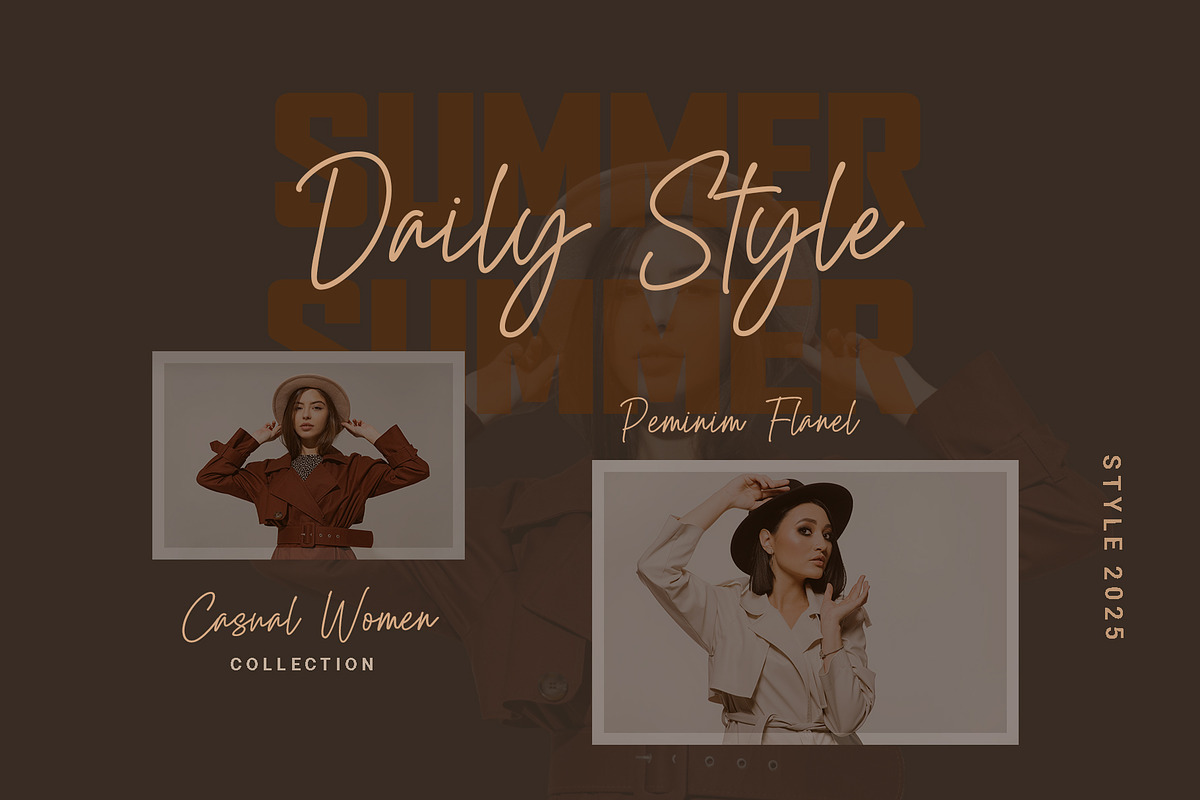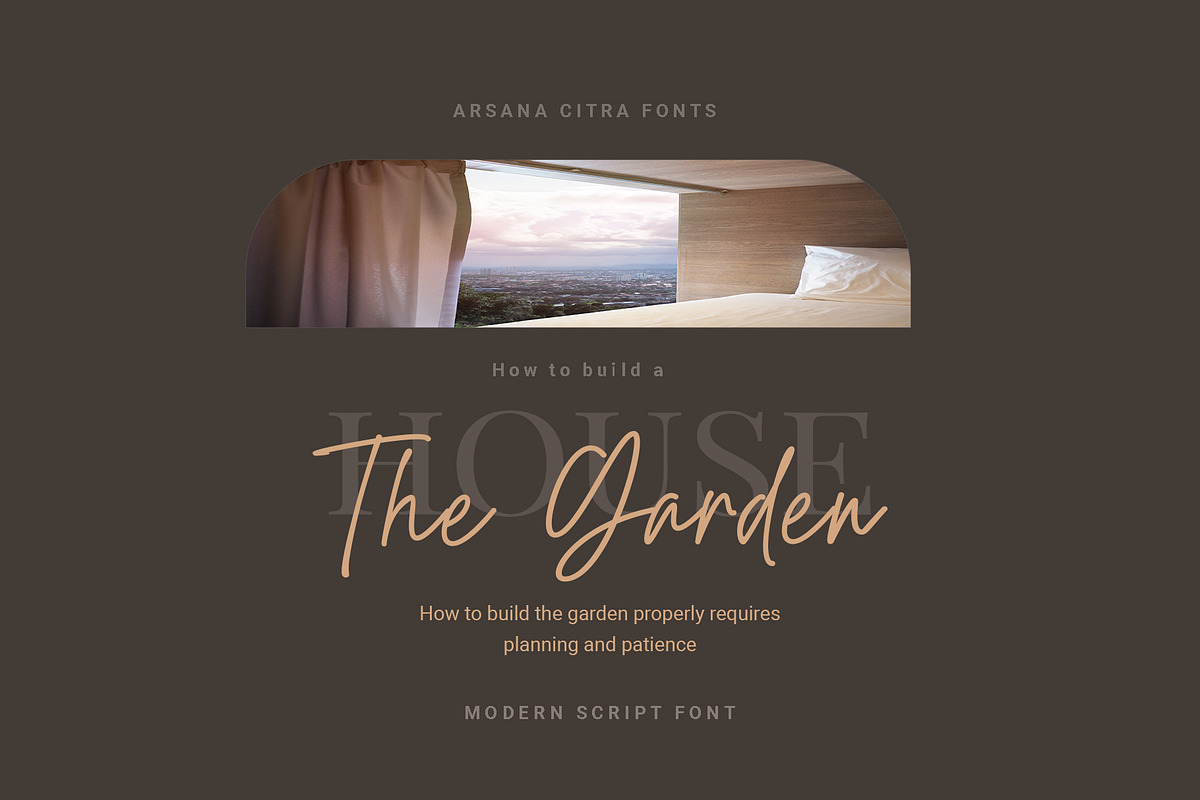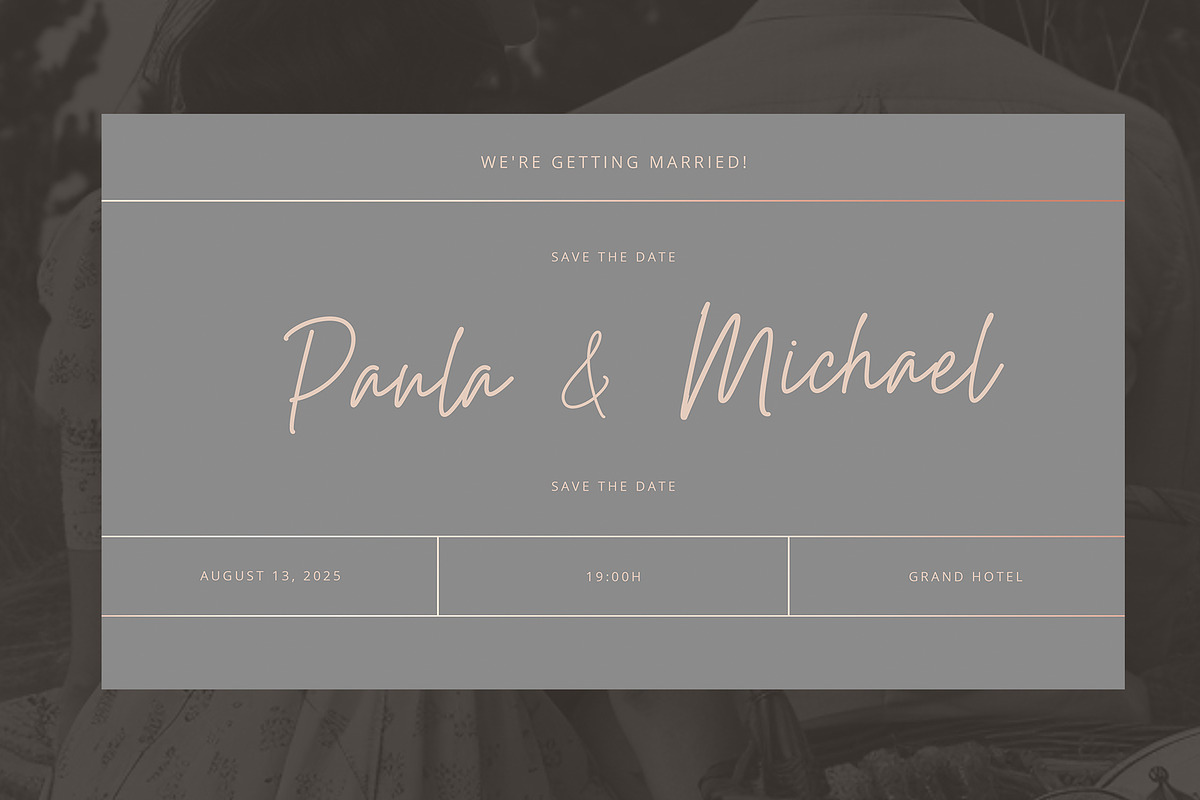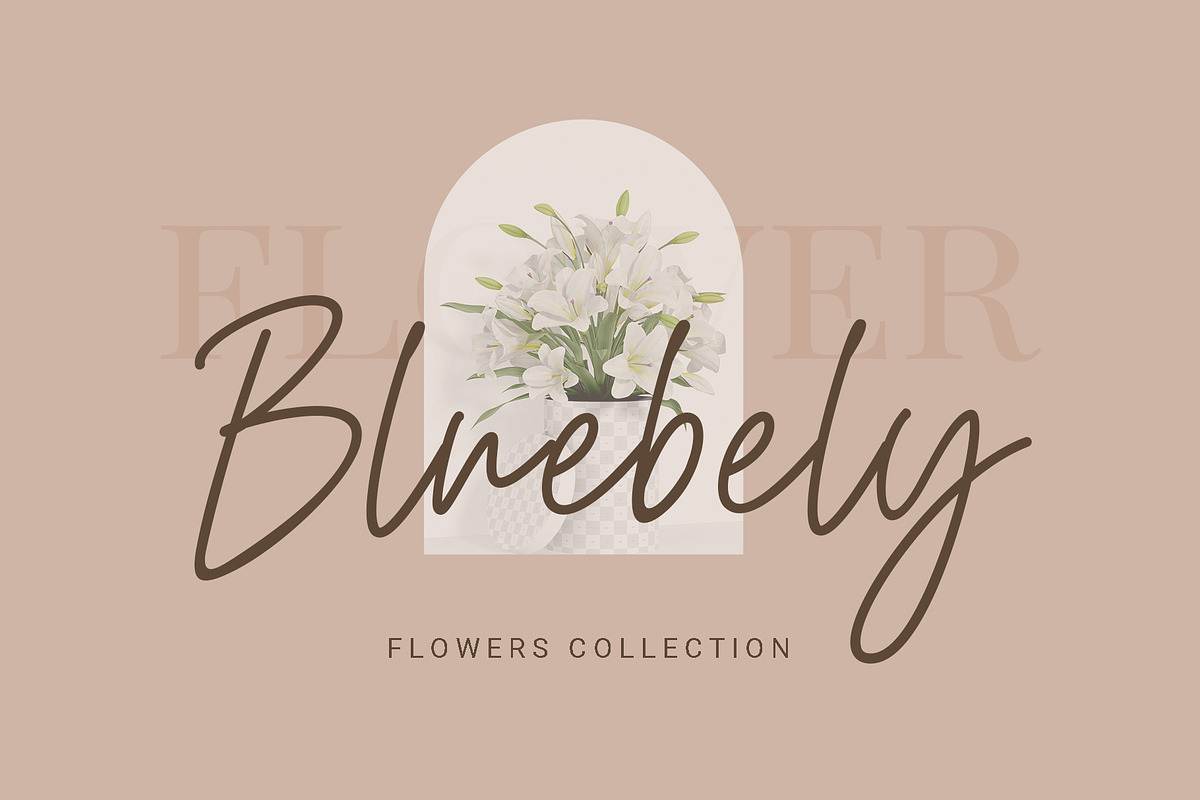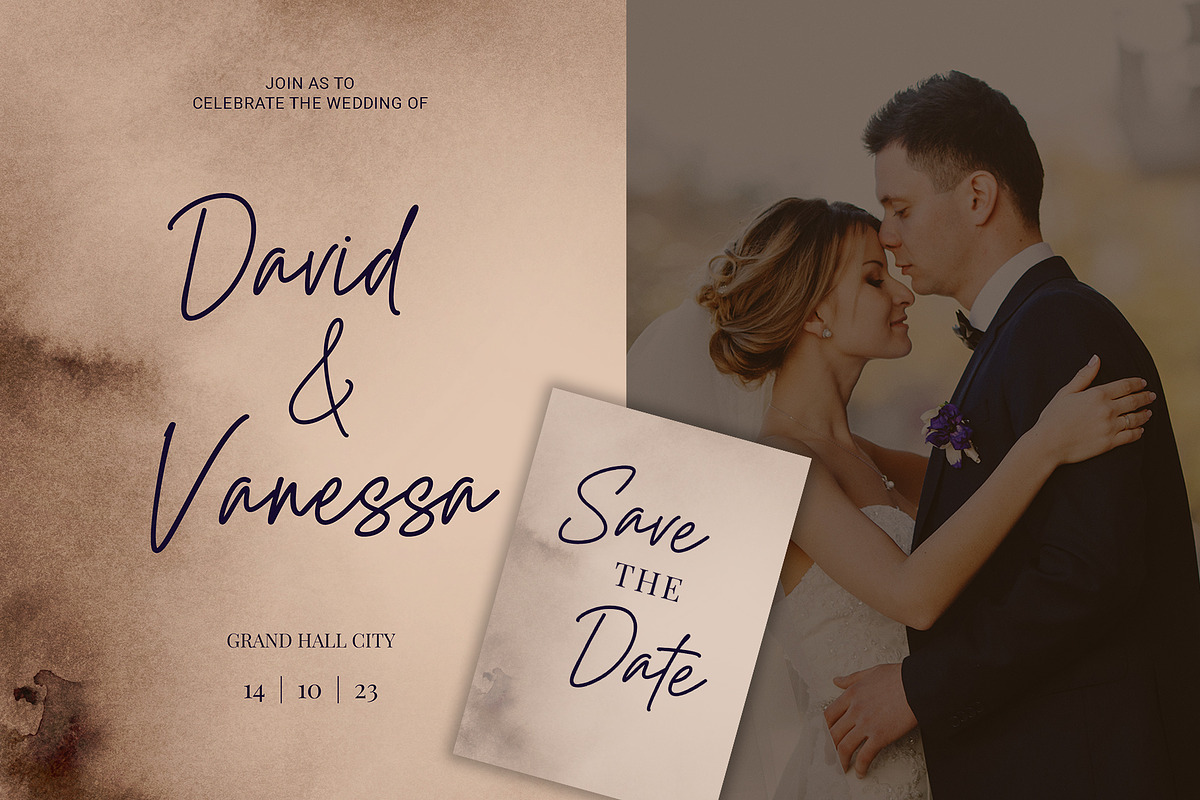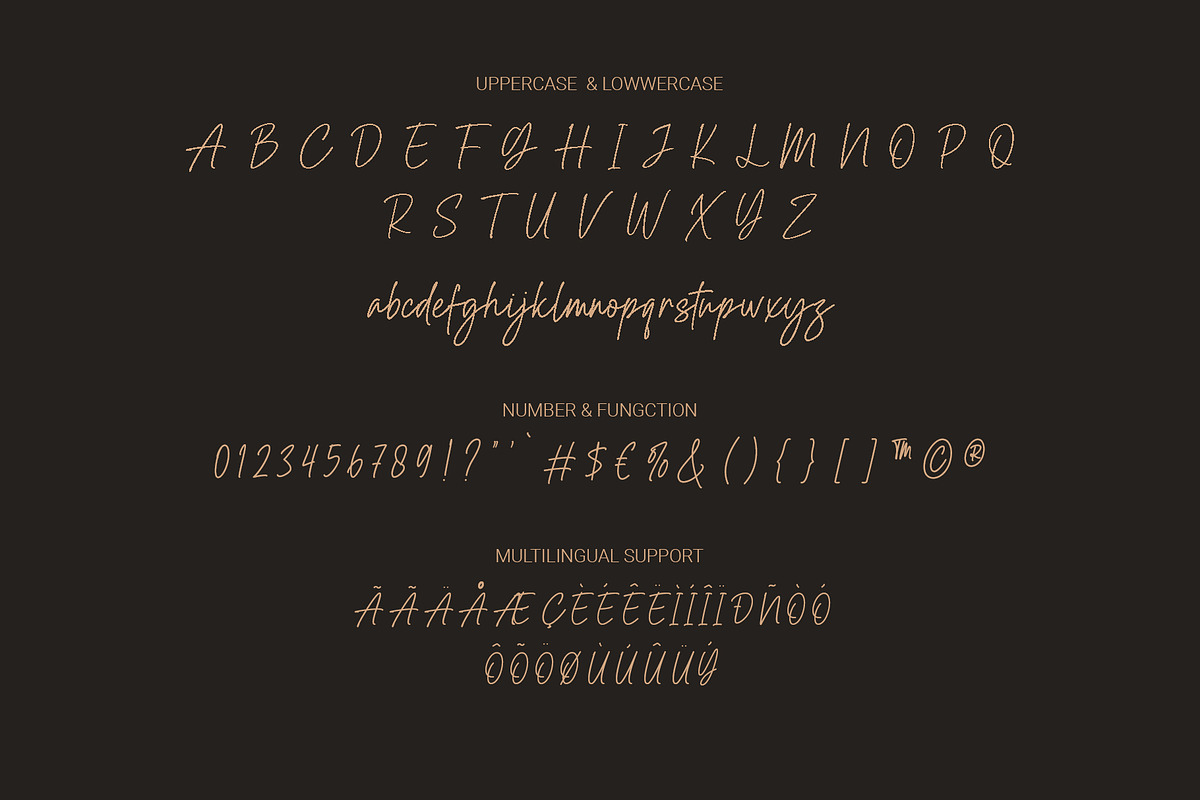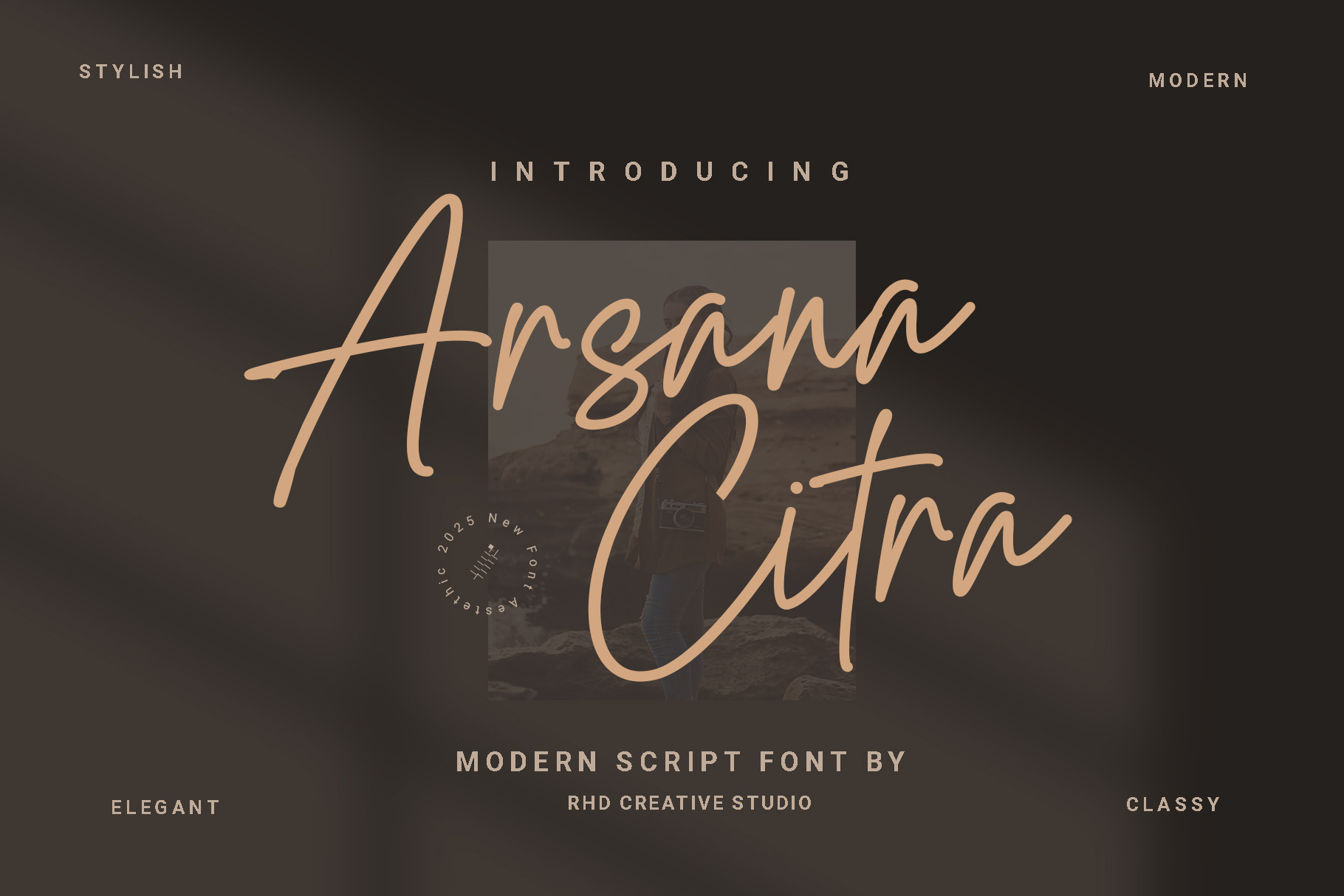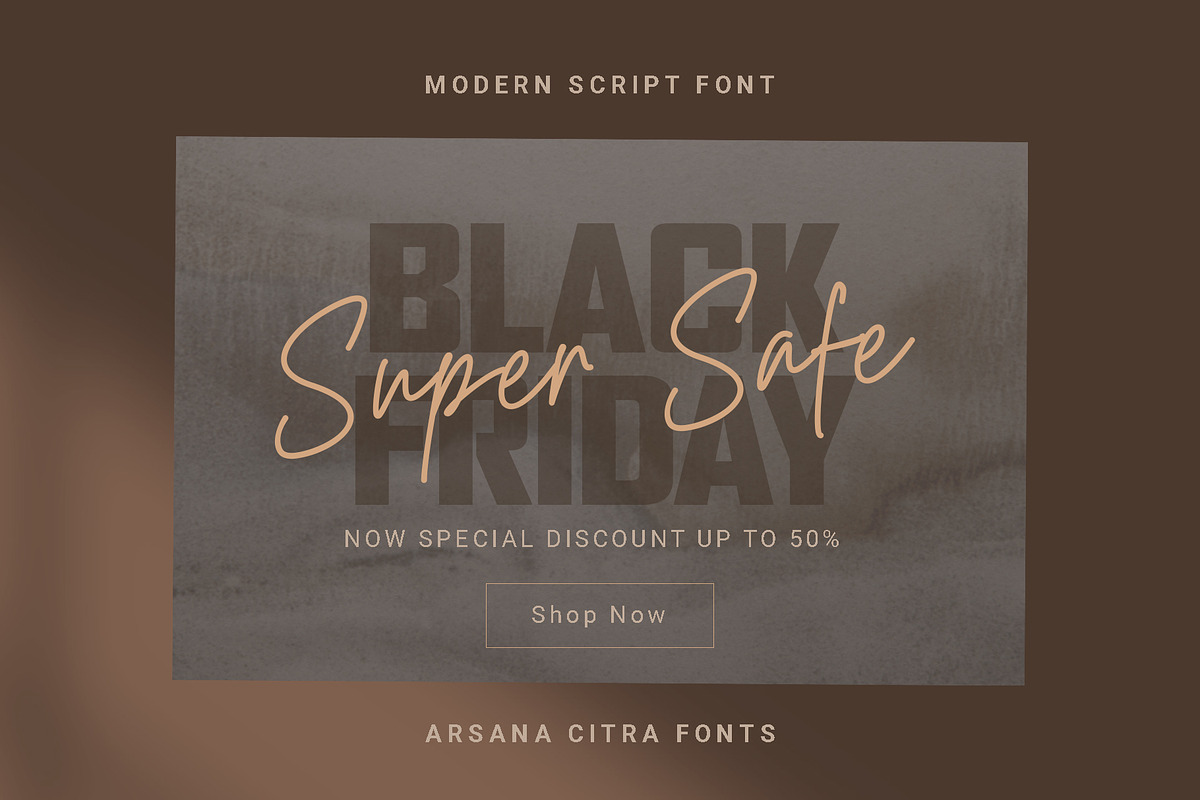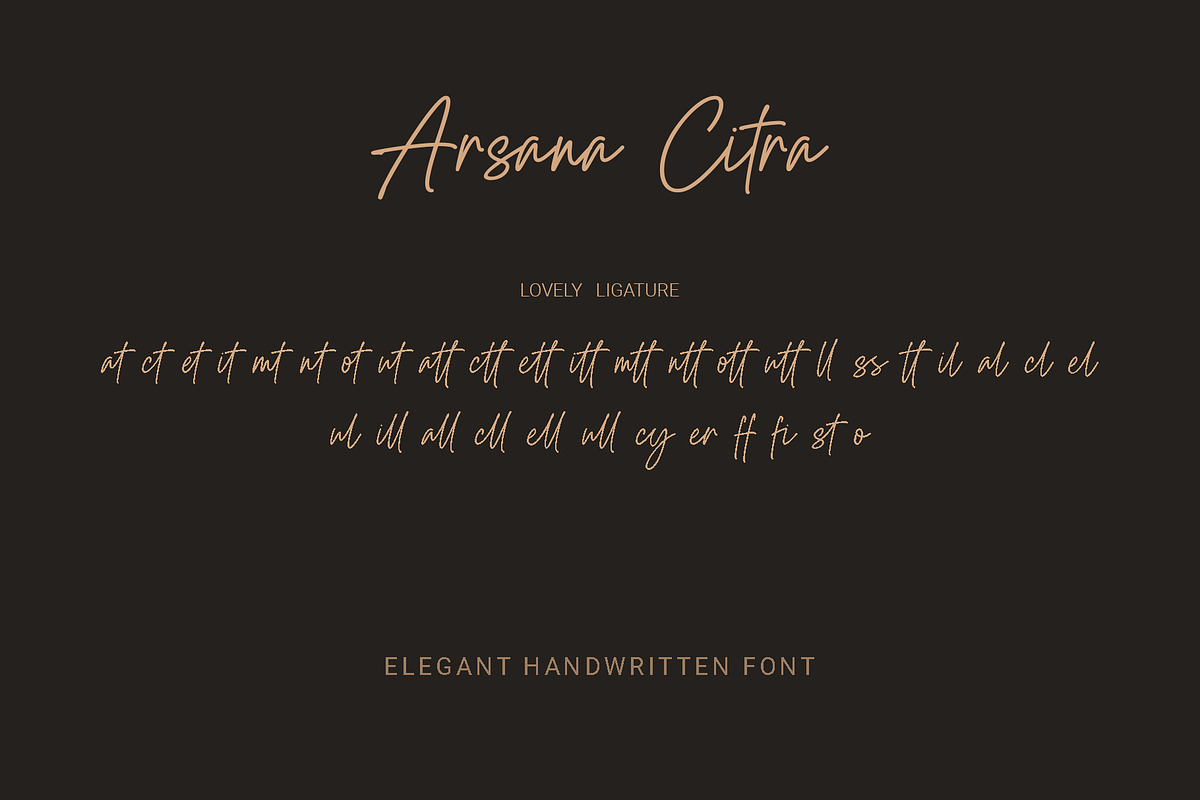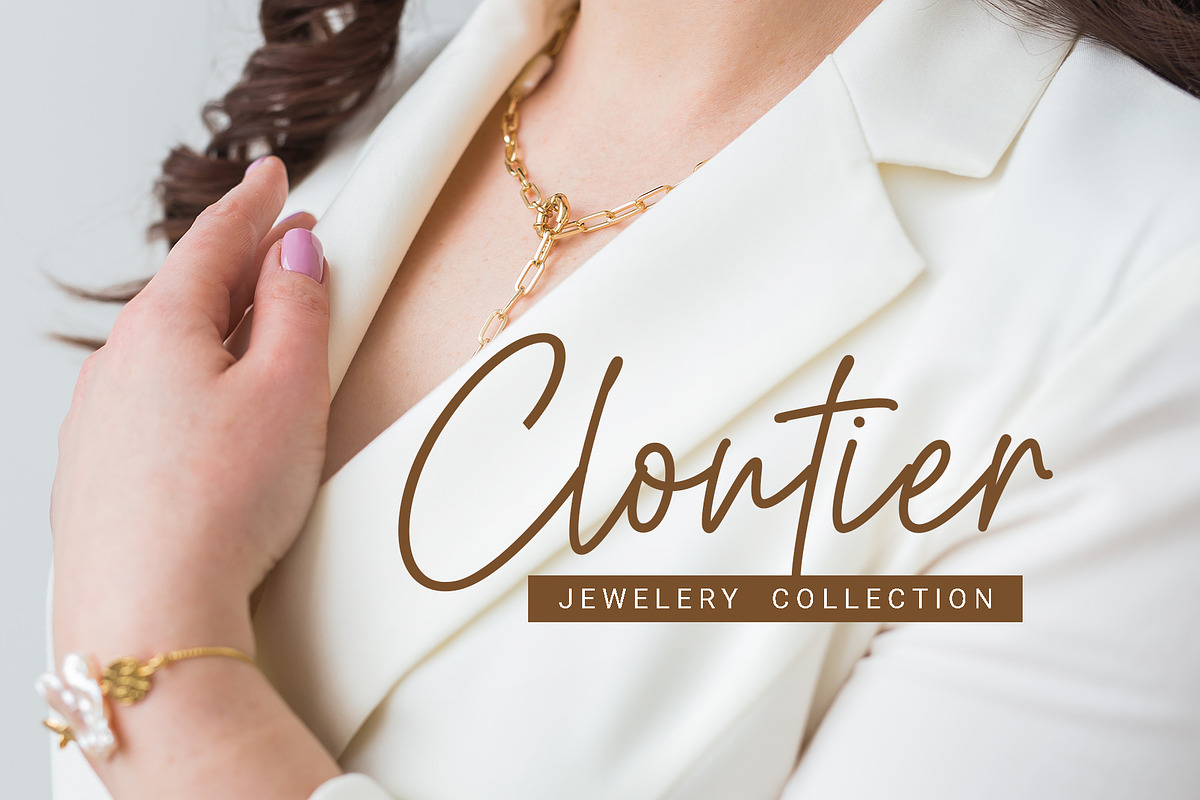
Arsana Citra - Modern Script Font
Hello everyone, I would like to introduce Arsana Citra - Modern Script Font.
Arsana Citra - Modern Script Font with Handmade character. Arsana Citra - Modern Script Font , Modern font to make your design project stand out! Arsana Citra - Modern Script Font a perfectly choice for any creative endeavor, creating, modern, chic, lifestyle design such as logotype, title, cover, branding, invitations, wedding designs, display and magazine, social media posts, advertisements, printed quotes, product packaging, corporate brand, product designs, labels, photography, watermarks, special events and any other project with modern touch.